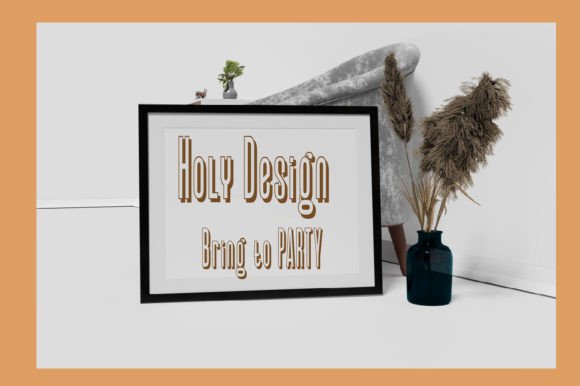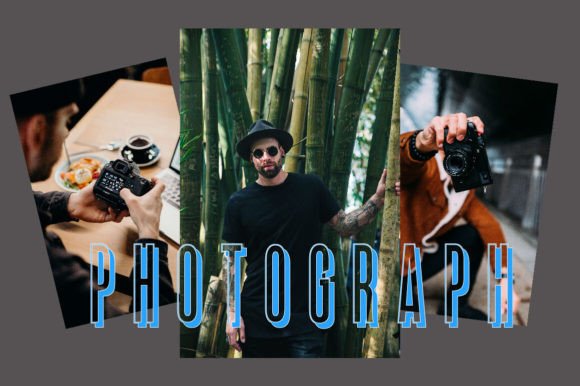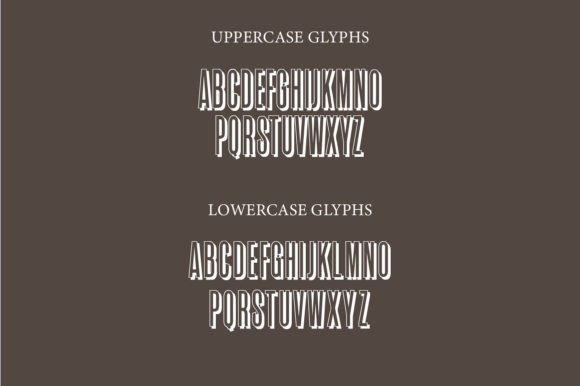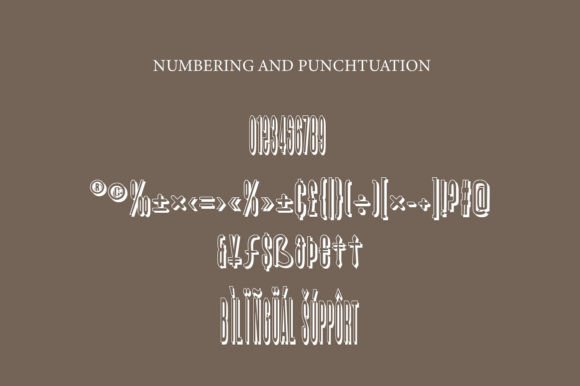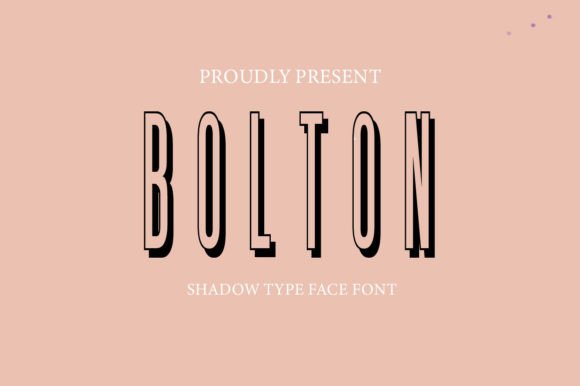
Introducing Bolton Font: Elevate Your Designs with a Cool and Modern Shadow-Display Font
In the realm of typography, fonts play a pivotal role in shaping the visual identity of a design. Among the myriad of fonts available, Bolton Font stands out as a cool and modern shadow-display font that adds a stylish dimension to any creative project. With its sleek, bold letterforms and a contemporary aesthetic, Bolton creates a striking and dynamic impact that is hard to ignore.
What Makes Bolton Font Special?
Bolton Font is designed to meet the demands of projects that require a bold and modern vibe. Its unique blend of sleek lines, bold shapes, and a shadow effect gives it a distinctive edge over other fonts. Here are some key features that make Bolton Font an ideal choice for designers and crafters:
• Sleek and Bold Letterforms: Bolton Font boasts sleek and bold letterforms that exude confidence and modernity. Each letter is carefully crafted to ensure that it stands out, making it perfect for headlines, titles, and any design element that needs to make a statement.
• Contemporary Aesthetic: The font’s contemporary aesthetic ensures that it fits seamlessly into modern design trends. Whether you’re working on a website, a print project, or a digital product, Bolton Font’s modern look will elevate your design to new heights.
• Shadow Effect: The shadow effect in Bolton Font adds depth and dimension to your designs. This subtle yet impactful feature creates a sense of layering, making your text stand out against any background.
• Versatility: Bolton Font is incredibly versatile, making it suitable for a wide range of projects. From branding and advertising to web design and digital media, this font can be used in various contexts to create visually captivating designs.
Why Choose Bolton Font for Your Projects?
Choosing the right font for your project can be a daunting task, given the numerous options available. However, Bolton Font offers several compelling reasons to make it your go-to choice:
• Enhances Visual Appeal: Bolton Font’s bold and modern design instantly enhances the visual appeal of your project. Its striking appearance ensures that your design grabs attention and leaves a lasting impression.
• Saves Time: With Bolton Font, you don’t have to spend hours designing custom lettering or searching for the perfect font. Its ready-to-use design saves you time, allowing you to focus on other aspects of your project.
• Improves Brand Image: Using a high-quality, modern font like Bolton can significantly improve your brand’s image. It shows that you pay attention to detail and are committed to delivering high-quality designs.
How to Use Bolton Font Effectively
To get the most out of Bolton Font, consider the following tips:
• Pair with Complementary Fonts: Bolton Font works best when paired with complementary fonts that offer a contrasting style. This contrast ensures that your design remains visually interesting and balanced.
• Use for Headings and Titles: Due to its bold nature, Bolton Font is ideal for headings and titles. Use it to create a strong visual hierarchy in your design.
• Experiment with Colors: Don’t be afraid to experiment with different colors and gradients. Bolton Font’s shadow effect looks stunning with bright colors and can add a unique touch to your design.
Bolton Font is a powerful tool for designers and crafters looking to add a cool and modern touch to their projects. Its sleek, bold letterforms, contemporary aesthetic, and shadow effect make it an ideal choice for projects that demand a bold and modern vibe. By incorporating Bolton Font into your designs, you can create visually captivating and dynamic designs that stand out in a crowded digital landscape.